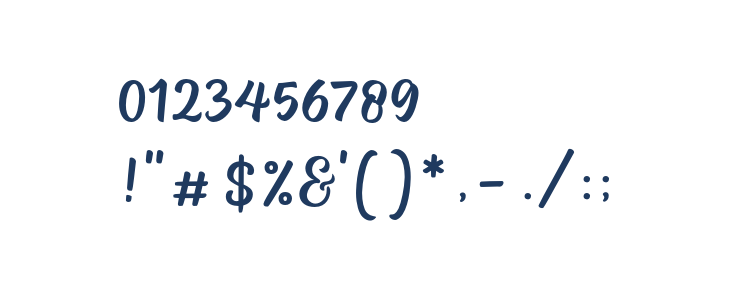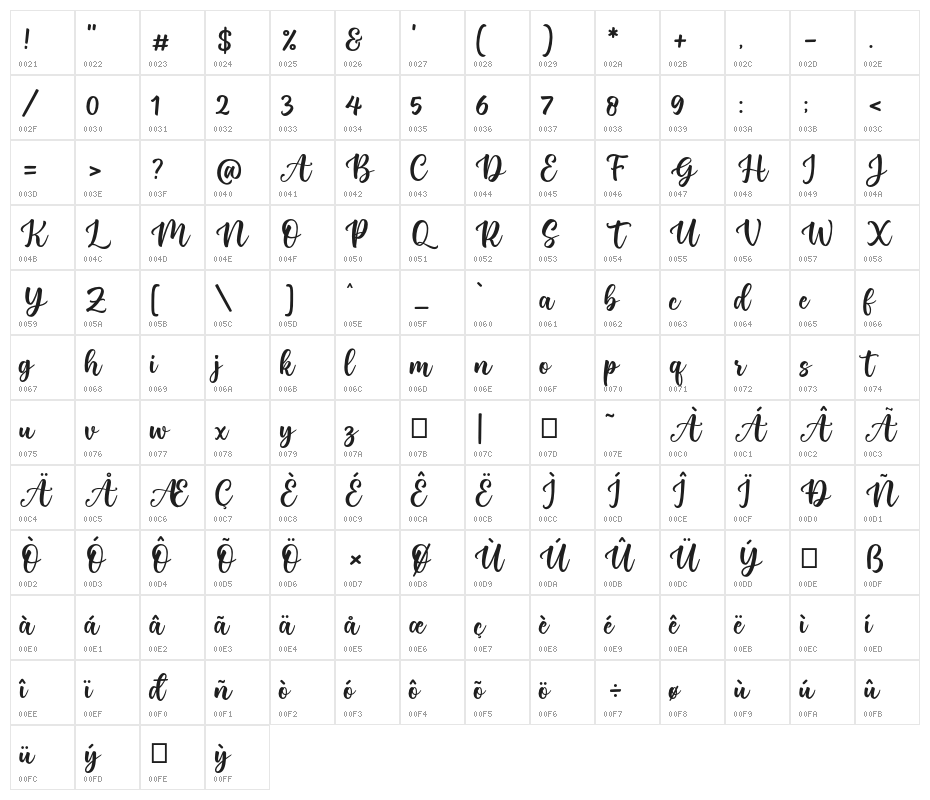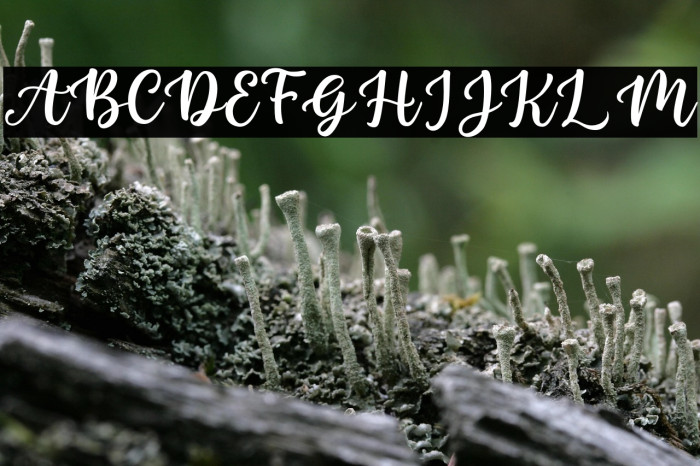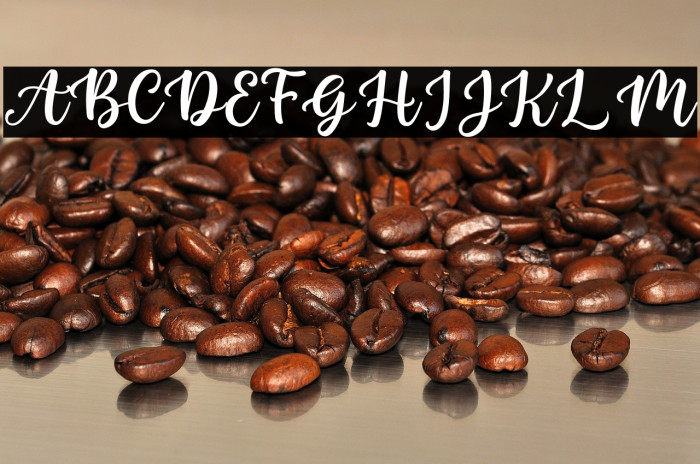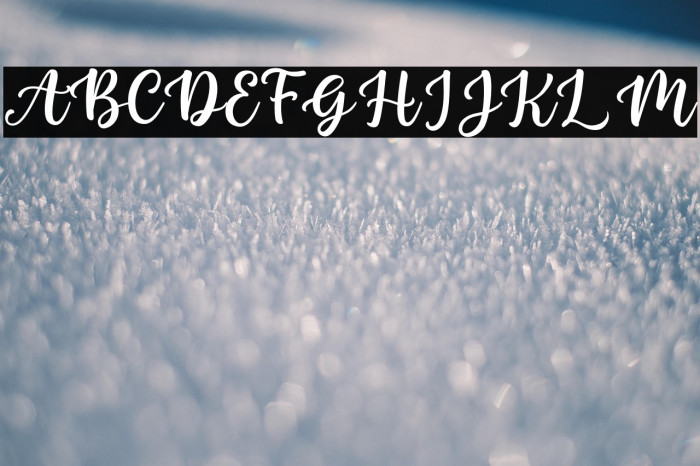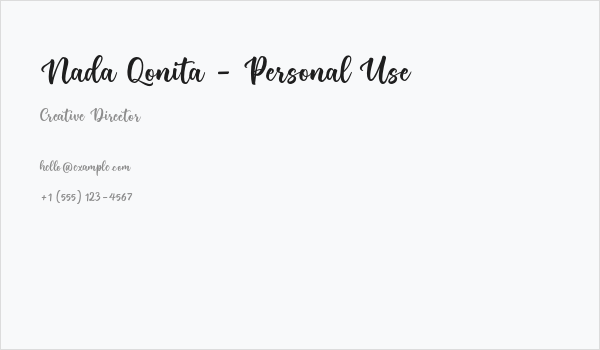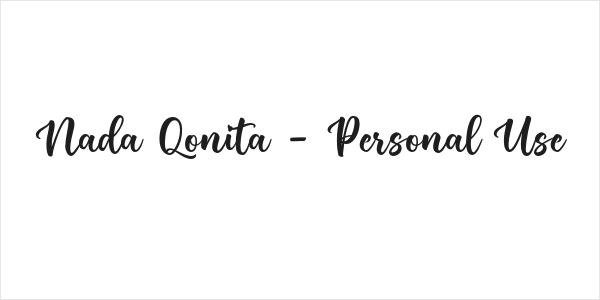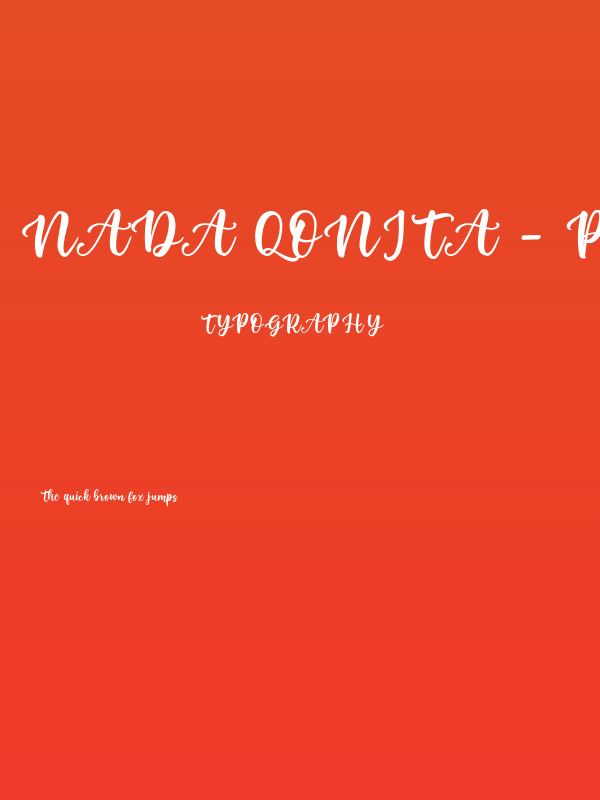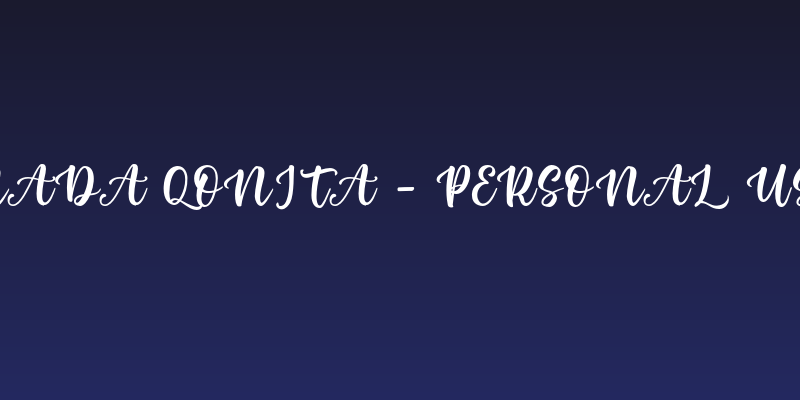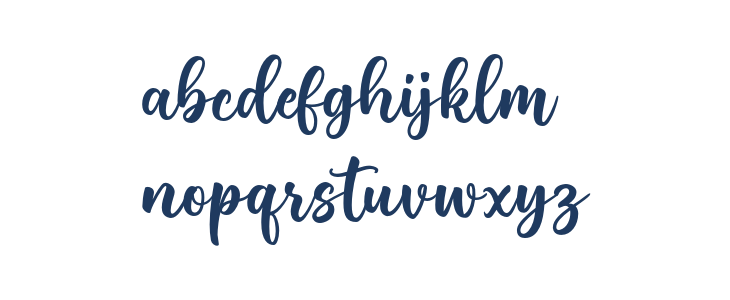
Nada Qonita - Personal Use Font
Nada Qonita - Personal Use Description
This font features a flowing, cursive style with elegant loops and swashes, giving it a handwritten appearance. The uppercase letters are distinct with flourishes that add a touch of sophistication, while the lowercase letters maintain a consistent, smooth flow. The numbers are bold and clear, matching the overall aesthetic of the font. Special characters are included, maintaining the same stylistic elements, ensuring versatility in various design contexts. The font's playful yet refined nature makes it suitable for creative projects that require a personal touch.
| Use Case | Logos, Invitations, Social Media |
| Proposed Projects | Ideal for wedding invitations, greeting cards, branding, and social media graphics. |